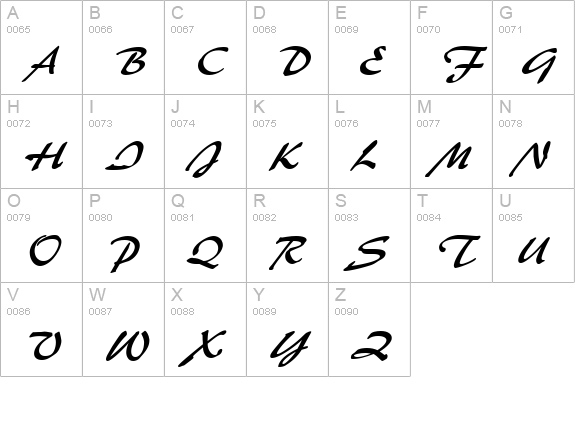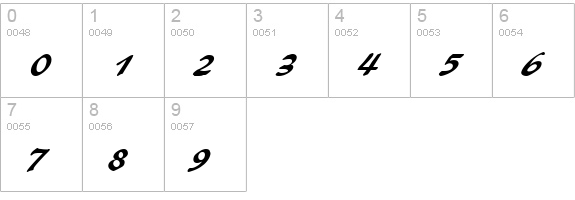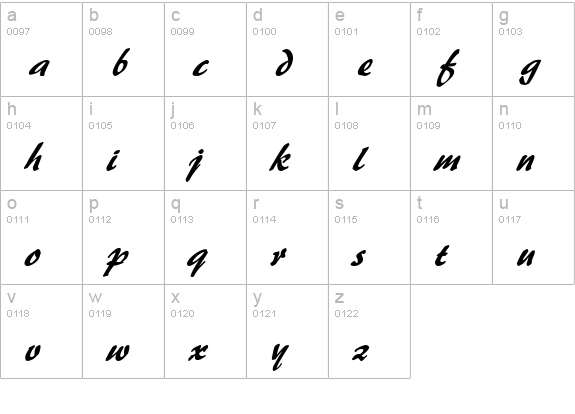
BrushStroke 35 Italic Font Details
BrushStroke 35 Italic is a distinctive, italic variant in the BrushStroke typeface family \xE2\x80\x94 well suited to design and typography projects.
BrushStroke 35 Italic is a beautifully crafted font that exudes elegance and sophistication. Its unique brush strokes give it a touch of artistic flair, making it perfect for adding a stylish and modern look to your projects. The italic style adds a sense of dynamism and movement, making text appear more engaging and eye-catching. This font is ideal for use in various design projects such as logos, branding, packaging, invitations, and more. Its versatility allows it to be used in both digital and print media, providing a seamless and cohesive look across different platforms. The best part is that BrushStroke 35 Italic is available for free download at FontsMarket.com. This means that you can easily access this stunning font without any cost, making it a valuable addition to your font collection. Don't miss out on the opportunity to enhance your designs with this exceptional typeface. Download BrushStroke 35 Italic today and let your creativity shine!